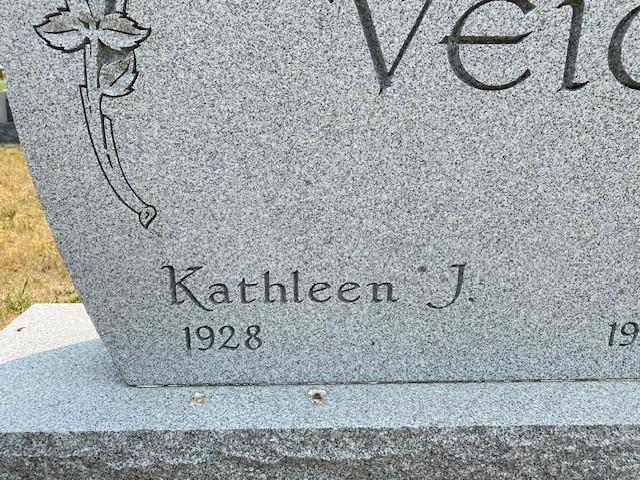
Hello, anyone know this one? Thought it was Claustrum at first but the 9 is different
Hello, this is a specific version of an AICA member alphabet, which is typically referred to as “Round Serif”, and has been given numbers based on Zapf Chancery–though at least the numeral ‘1’ has been modified. There are quite a few versions of the font available, including one in Cochran’s Monumental Designer, and one in Monu-Cad, but both are a bit more clumsy looking and neither will match this version.
Claustrum, as well as Round Serif, are both based on lettering from a 1956 book called Script Lettering, by M. Meijer. His version was titled “Gothic Text”, and contained no numbers, which is why there are so many different variations of them. Meijer may also have used older source material when creating the style.
Claustrum will be similar to the lettering, and Zapf Chancery can be used for the numbers with some light modification.